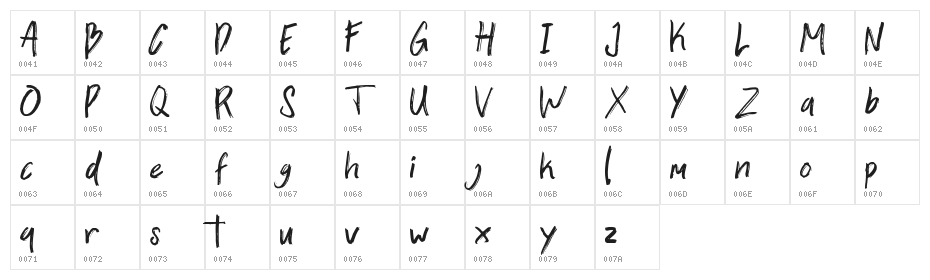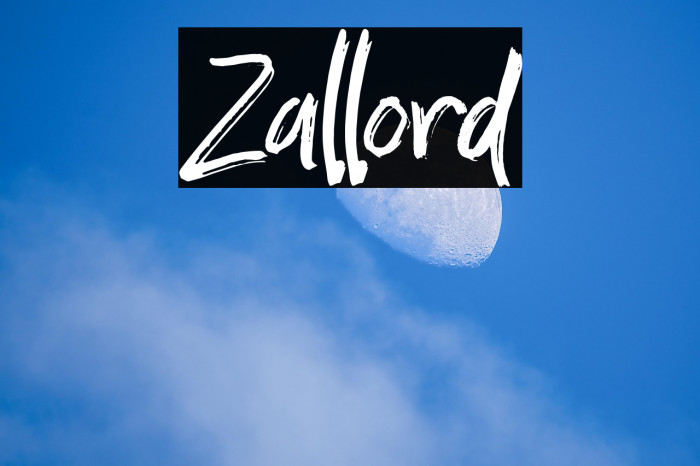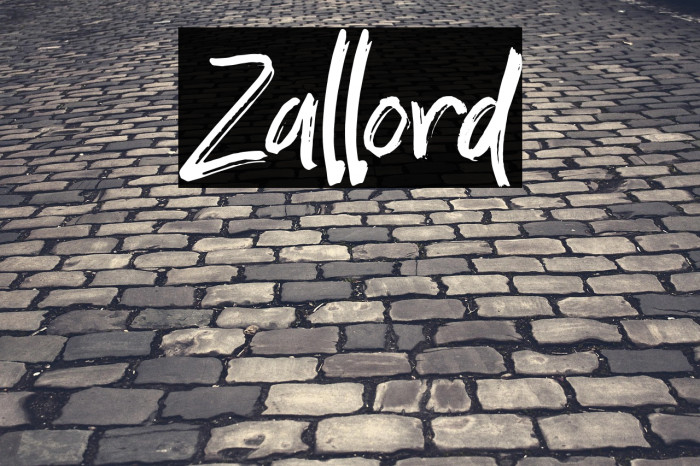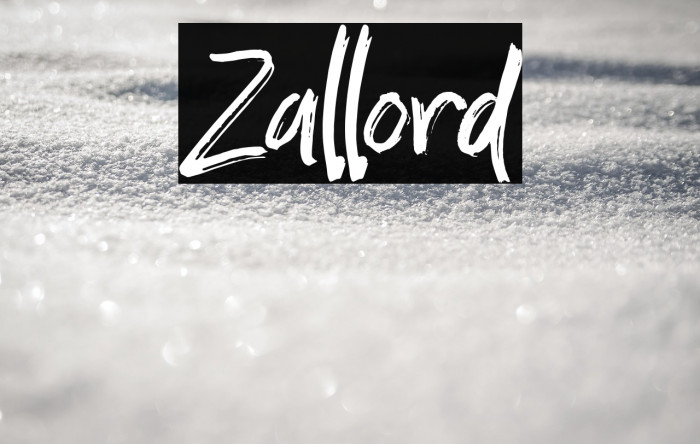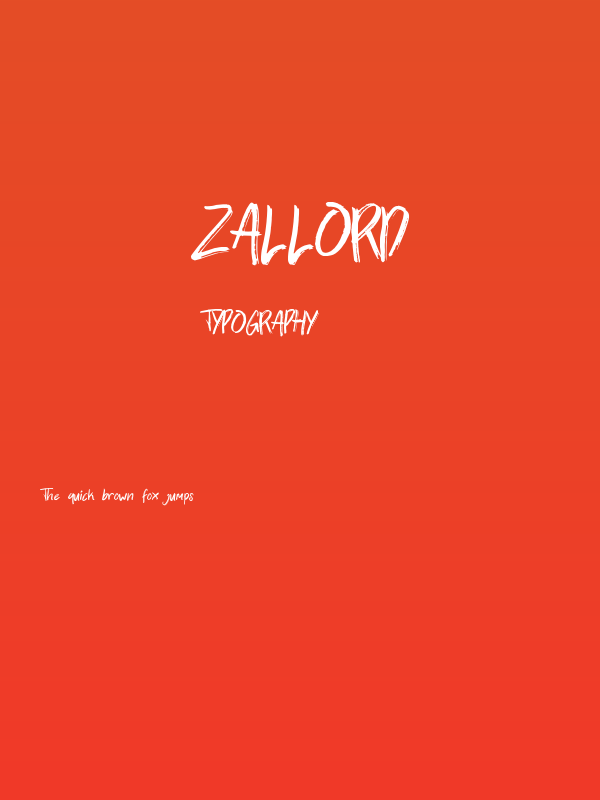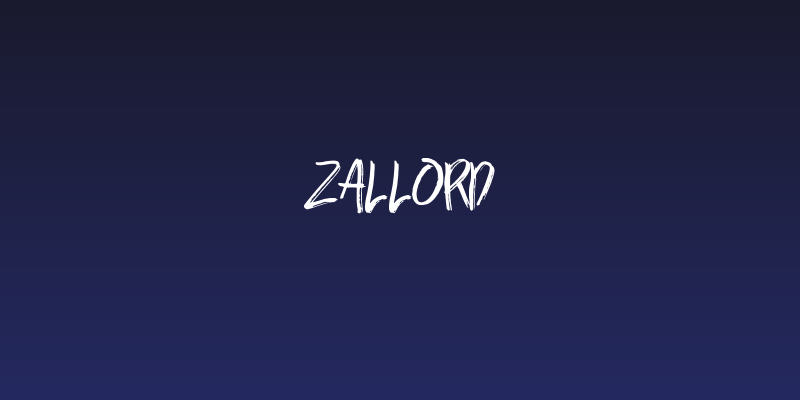
Zallord Font
Zallord Description
This font exhibits a bold, expressive style with a hand-drawn appearance. The letters are characterized by their uneven strokes and dynamic, energetic lines, giving a sense of movement and spontaneity. The uppercase and lowercase letters maintain a consistent style, with exaggerated curves and angles that add to the font's unique personality. The numbers and special characters follow the same design principles, ensuring a cohesive look across all characters. This font is ideal for projects that require a personal touch or an artistic flair, as it conveys a sense of creativity and individuality.